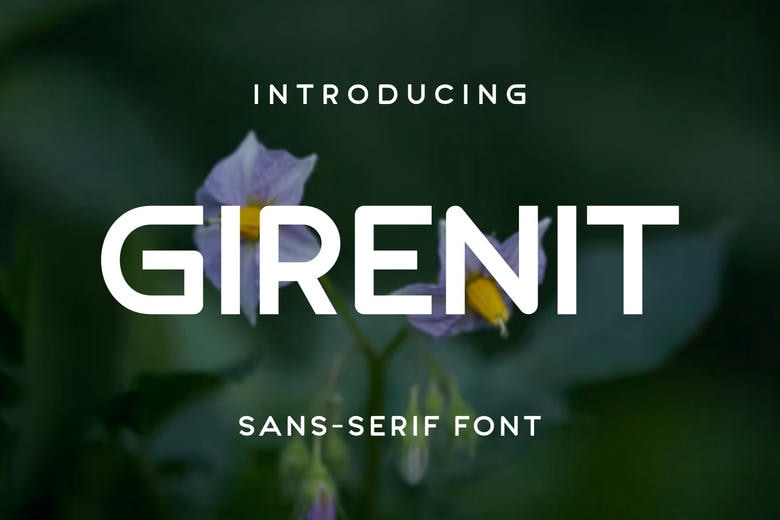
Girenit Font
Girenit is a cool and unique sans serif font. Regardless of the subject, this font will be a marvelous addition to the library of your fonts, as it can make any work rise to a higher level.
Girenit Sans Serif Font